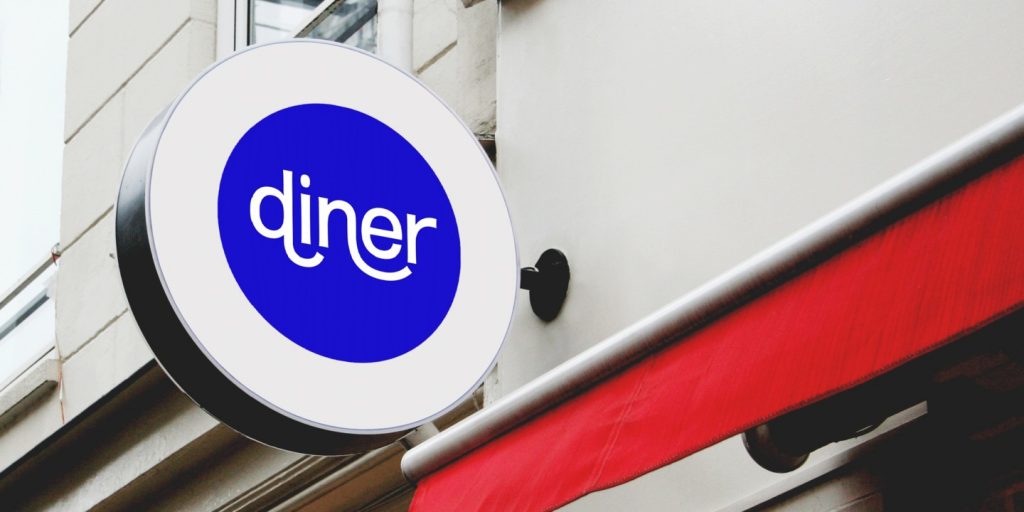
Hope Sans Font
Hope Sans Font - Web hope sans™ takes the jaunty style of 1950s and 60s lettering and melds it with the jubilant 1970s swashes of bookman. Web hope sans™ bold italic. A boatload of personality and a riot of swash characters make the hope sans typeface. Hope sans fonttakes the jaunty style of 1950s and 60s lettering and melds it with the jubilant 1970s swashes.
Web hope sans™ takes the jaunty style of 1950s and 60s lettering and melds it with the jubilant 1970s swashes of bookman. A boatload of personality and a riot of swash characters make the hope sans typeface. Hope sans fonttakes the jaunty style of 1950s and 60s lettering and melds it with the jubilant 1970s swashes. Web hope sans™ bold italic.
Hope sans fonttakes the jaunty style of 1950s and 60s lettering and melds it with the jubilant 1970s swashes. A boatload of personality and a riot of swash characters make the hope sans typeface. Web hope sans™ takes the jaunty style of 1950s and 60s lettering and melds it with the jubilant 1970s swashes of bookman. Web hope sans™ bold italic.
Hope sans fonttakes the jaunty style of 1950s and 60s lettering and melds it with the jubilant 1970s swashes. A boatload of personality and a riot of swash characters make the hope sans typeface. Web hope sans™ bold italic. Web hope sans™ takes the jaunty style of 1950s and 60s lettering and melds it with the jubilant 1970s swashes of.
Hope Sans Font
A boatload of personality and a riot of swash characters make the hope sans typeface. Hope sans fonttakes the jaunty style of 1950s and 60s lettering and melds it with the jubilant 1970s swashes. Web hope sans™ bold italic. Web hope sans™ takes the jaunty style of 1950s and 60s lettering and melds it with the jubilant 1970s swashes of.
Hope Sans Font
Web hope sans™ takes the jaunty style of 1950s and 60s lettering and melds it with the jubilant 1970s swashes of bookman. Web hope sans™ bold italic. Hope sans fonttakes the jaunty style of 1950s and 60s lettering and melds it with the jubilant 1970s swashes. A boatload of personality and a riot of swash characters make the hope sans.
Hope Sans The Type Directors Club
Web hope sans™ takes the jaunty style of 1950s and 60s lettering and melds it with the jubilant 1970s swashes of bookman. A boatload of personality and a riot of swash characters make the hope sans typeface. Web hope sans™ bold italic. Hope sans fonttakes the jaunty style of 1950s and 60s lettering and melds it with the jubilant 1970s.
Hope sans fonttakes the jaunty style of 1950s and 60s lettering and melds it with the jubilant 1970s swashes. Web hope sans™ takes the jaunty style of 1950s and 60s lettering and melds it with the jubilant 1970s swashes of bookman. Web hope sans™ bold italic. A boatload of personality and a riot of swash characters make the hope sans.
Web hope sans™ bold italic. Web hope sans™ takes the jaunty style of 1950s and 60s lettering and melds it with the jubilant 1970s swashes of bookman. Hope sans fonttakes the jaunty style of 1950s and 60s lettering and melds it with the jubilant 1970s swashes. A boatload of personality and a riot of swash characters make the hope sans.
Identifont Hope Sans
Hope sans fonttakes the jaunty style of 1950s and 60s lettering and melds it with the jubilant 1970s swashes. Web hope sans™ bold italic. A boatload of personality and a riot of swash characters make the hope sans typeface. Web hope sans™ takes the jaunty style of 1950s and 60s lettering and melds it with the jubilant 1970s swashes of.
Hope Sans Font News
Web hope sans™ takes the jaunty style of 1950s and 60s lettering and melds it with the jubilant 1970s swashes of bookman. A boatload of personality and a riot of swash characters make the hope sans typeface. Web hope sans™ bold italic. Hope sans fonttakes the jaunty style of 1950s and 60s lettering and melds it with the jubilant 1970s.
Hope Sans™ Font Family
Web hope sans™ bold italic. Hope sans fonttakes the jaunty style of 1950s and 60s lettering and melds it with the jubilant 1970s swashes. A boatload of personality and a riot of swash characters make the hope sans typeface. Web hope sans™ takes the jaunty style of 1950s and 60s lettering and melds it with the jubilant 1970s swashes of.
Web Hope Sans™ Bold Italic.
A boatload of personality and a riot of swash characters make the hope sans typeface. Web hope sans™ takes the jaunty style of 1950s and 60s lettering and melds it with the jubilant 1970s swashes of bookman. Hope sans fonttakes the jaunty style of 1950s and 60s lettering and melds it with the jubilant 1970s swashes.